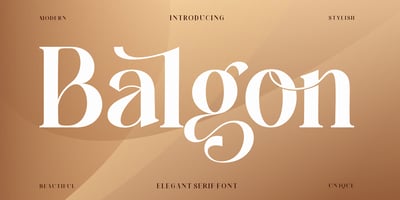
Balgon Serif Font is perfect for luxury publishing houses, prestigious academic institutions, high-end editorial magazines, sophisticated corporate communications, traditional law firm branding, classical literature reprints, financial services documentation, cultural organization materials, scholarly journal publications, and elegant business presentations. This distinguished typeface excels in environments where authority, tradition, and intellectual credibility are essential for establishing professional trust.
What makes Balgon Serif Font exciting is its masterful balance of classical serif traditions with contemporary functionality, creating a typeface that conveys both scholarly authority and modern accessibility. The font features refined serif details and elegant proportions that honor typographic heritage while ensuring exceptional readability across all applications. This sophisticated approach makes it ideal for organizations seeking to communicate expertise, reliability, and institutional gravitas through typography.
Balgon Serif Font family includes Light, Regular, Medium, Semibold, Bold, Black, and corresponding Italic variants. Each weight maintains the font's distinctive scholarly character while offering comprehensive flexibility for creating authoritative typographic hierarchies that reflect professional excellence and intellectual sophistication across various institutional applications.
The Balgon Serif Font Free Download offers designers access to a premium serif typeface that embodies the finest traditions of scholarly publishing and institutional communication. This font's authoritative aesthetic and classical heritage make it particularly valuable for educational institutions, professional services, and prestigious organizations requiring typography that commands respect and conveys intellectual authority.
Professional designers recognize the font's exceptional balance between traditional elegance and contemporary functionality. The carefully crafted serif construction and optimized spacing create excellent sustained reading comfort while conveying the sophistication and credibility essential for professional brand positioning and academic excellence.
When implementing Balgon Serif Font in design projects, the results consistently demonstrate both intellectual authority and aesthetic refinement. The font's scholarly personality makes it particularly effective for brands in education, law, finance, and professional consulting where traditional credibility and institutional trust are paramount to organizational success.
For digital environments, Balgon Serif Font renders exceptionally well across all platforms and devices, maintaining its classical elegance and superior readability from mobile interfaces to desktop applications. Its optimized metrics ensure consistent professional presentation across technological contexts.
Academic and professional agencies frequently recommend Balgon Serif Font for clients seeking sophisticated, institutionally-minded typography that communicates authority and scholarly excellence while remaining highly functional across diverse professional media applications and international academic markets.